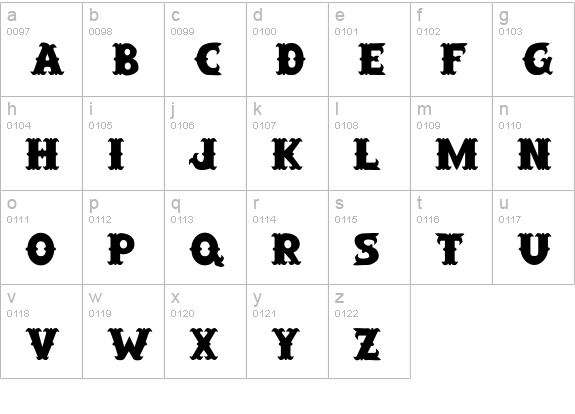
SaloonExt Th font is a stunning display typeface that captures the essence of the Wild West with its rustic and rugged design. This font is perfect for adding a touch of old-time charm and authenticity to any project or design. With its bold and strong letterforms, SaloonExt Th font instantly commands attention and makes a statement. What makes SaloonExt Th font even more appealing is that it is freely available to download at FontsMarket.com. This means that you can easily access and use this remarkable font without any cost. Whether you are a graphic designer, a typographer, or simply someone who appreciates high-quality fonts, SaloonExt Th font is a must-have addition to your collection. The versatility of SaloonExt Th font allows it to be used in a wide range of applications. From vintage-inspired posters and signage to Western-themed branding and packaging, this font brings a sense of nostalgia and authenticity to your designs. Its unique character and attention to detail make it stand out from the crowd and elevate your projects to a whole new level. Furthermore, SaloonExt Th font offers a comprehensive set of characters, including uppercase letters, lowercase letters, numerals, and punctuation marks. This ensures that you have all the tools you need to create visually appealing and cohesive designs. So, if you are in search of a remarkable display font that adds a touch of the Wild West to your projects, look no further than SaloonExt Th font. Download it for free at FontsMarket.com and let your creativity run wild.